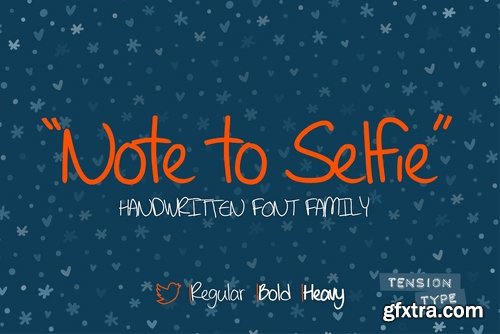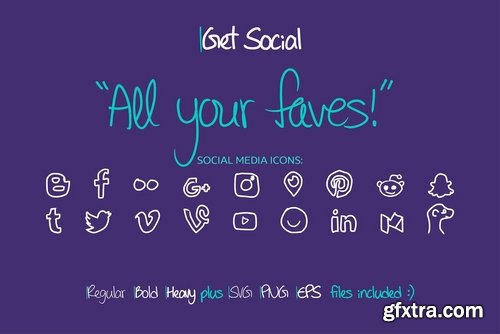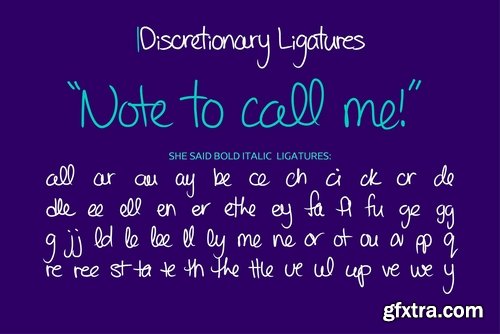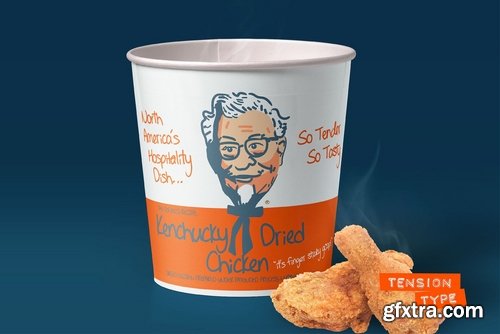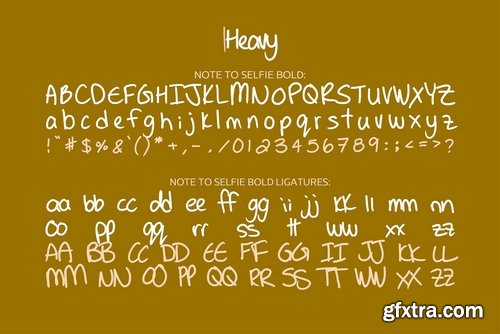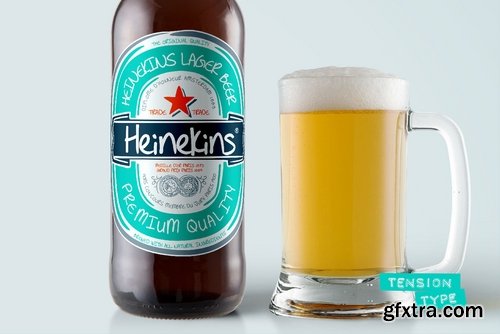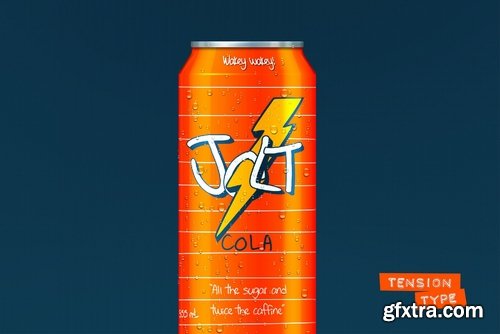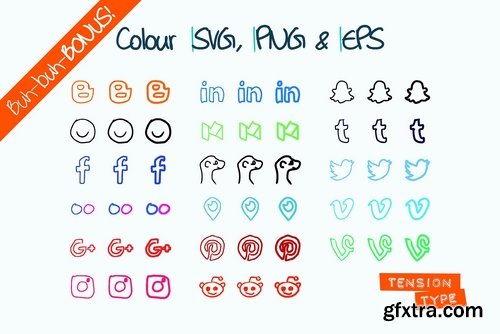
All those other fonts you have in your designer’s tool case, throw them away. Note to Selfie is the only typeface you need for any - and all of your designer projects! Though out my usage examples you will see the proof. Oh boy! It’s Comic Sans to the power of 12! At the very least this cute and cuddly script should make you smile :)